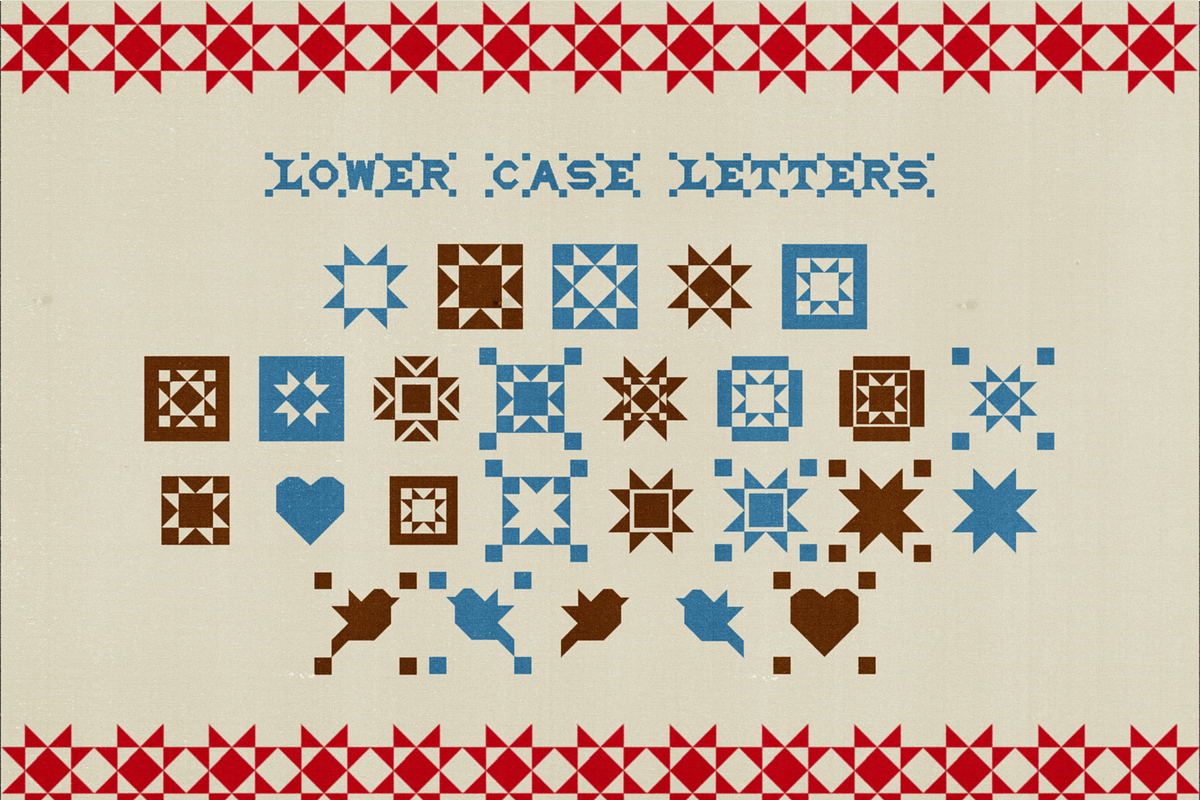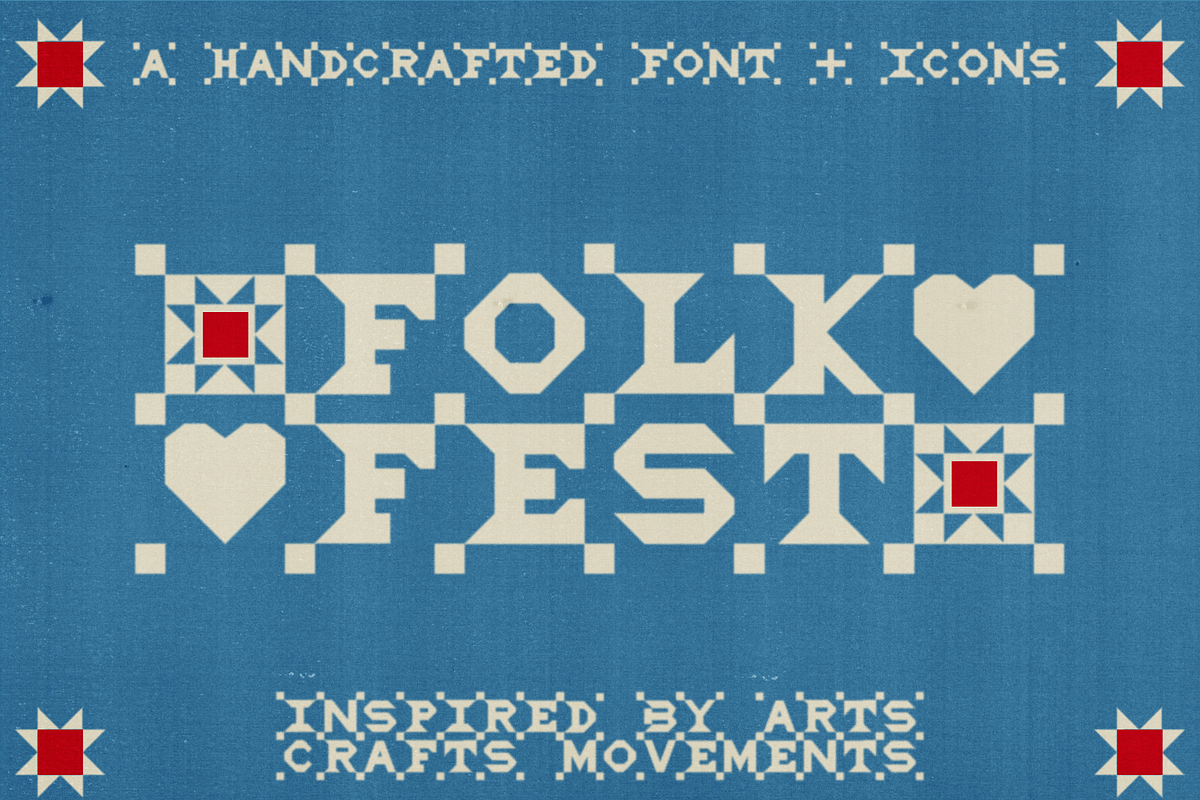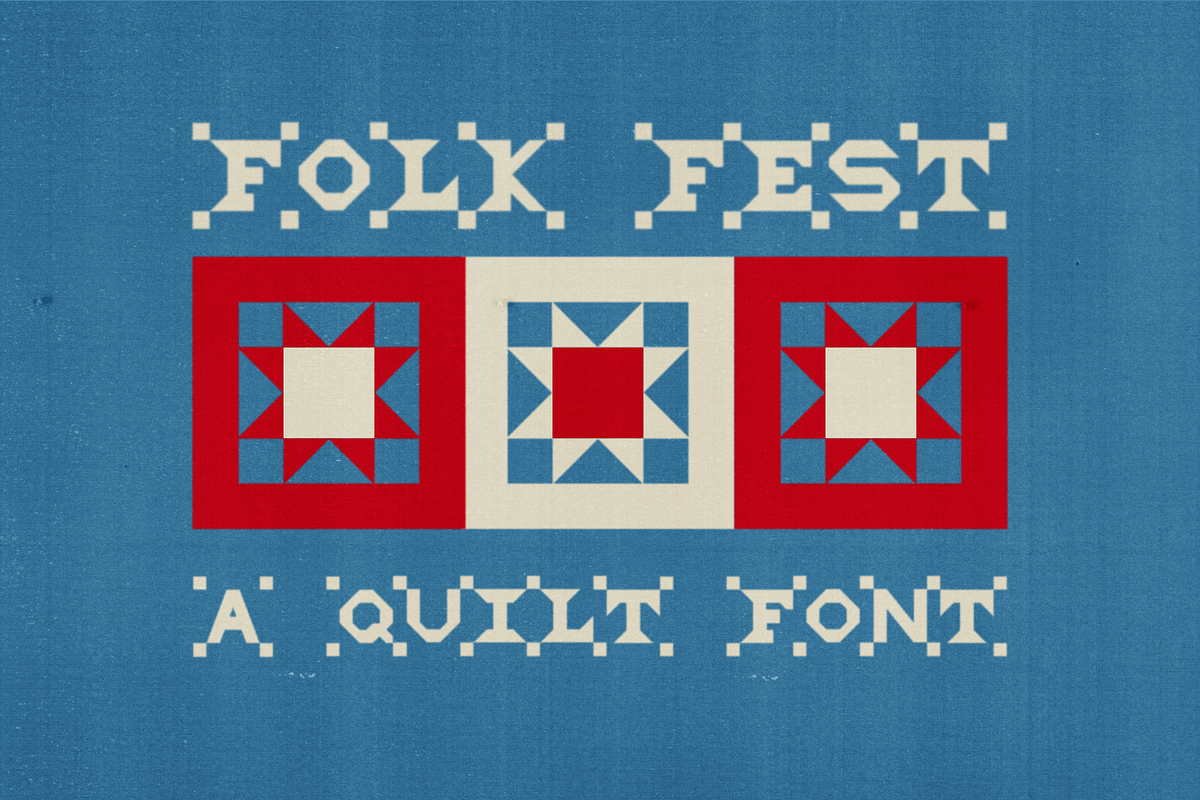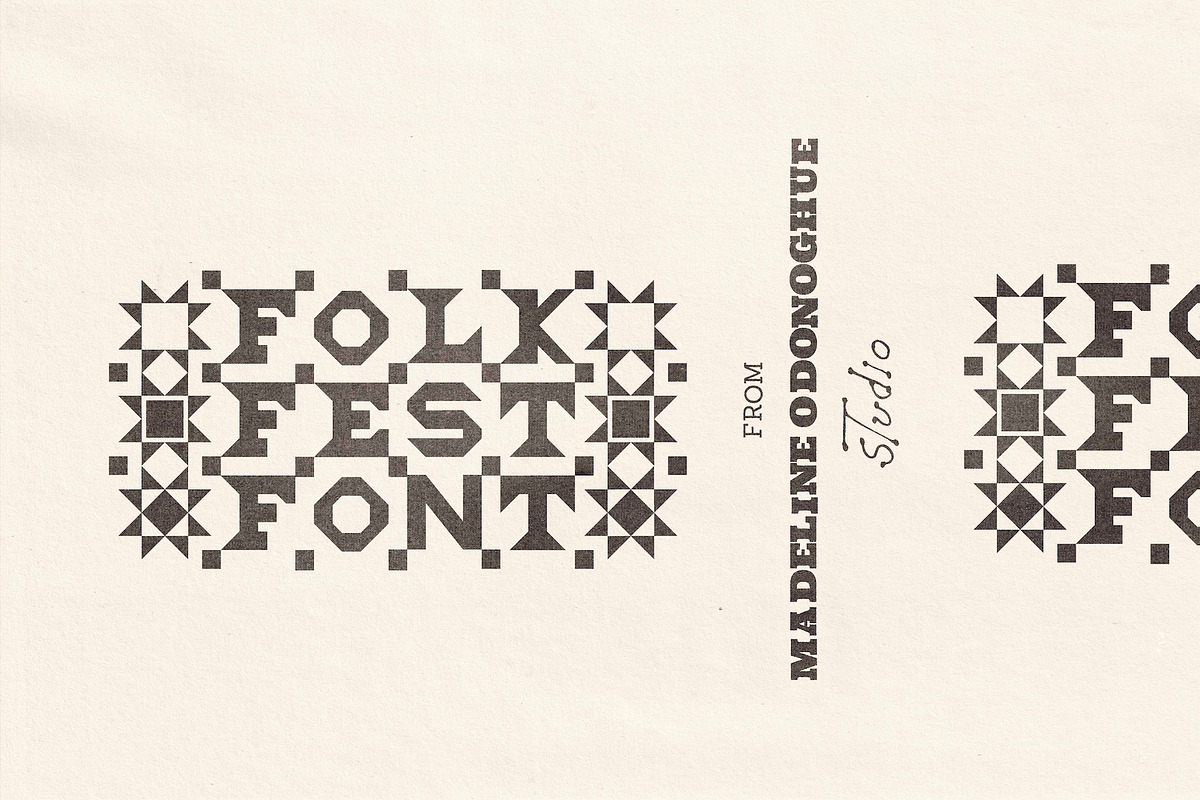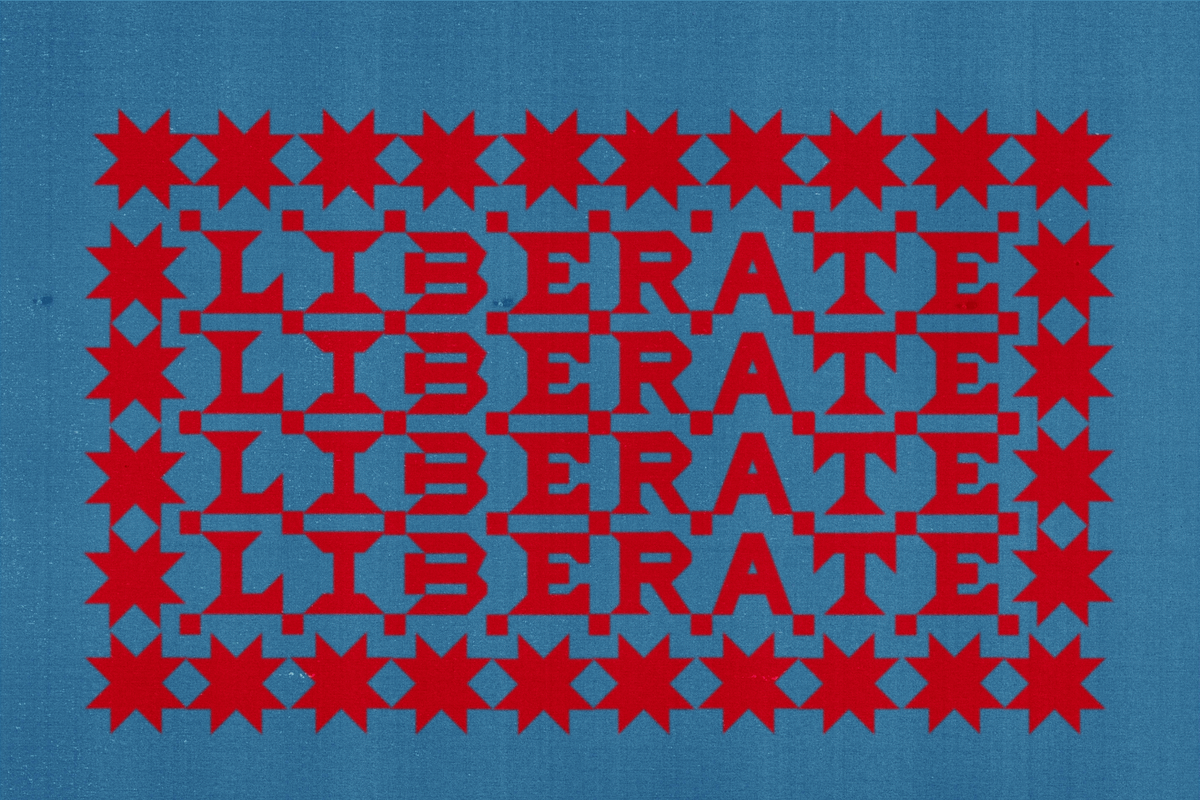
Folk Fest - Hand Crafted Font
FOLK FEST is a hand-crafted display font inspired by the rich visual history of quilt-making and the creative spirit of early Arts & Crafts movements. Rooted in tradition but made for today, it pulls from a legacy of stitched messages, patchwork symbols, and the power of handmade work — from freedom quilts and protest banners to home-sewn comforts and folk festival posters.
Think Topanga Canyon in the 70s: music in the hills, posters taped to tree trunks, blankets spread on dry grass. FOLK FEST captures that era’s free-thinking, back-to-basics energy — a celebration of process, imperfection, and the beauty of things made with care.
This all-caps display font is slightly irregular and full of character. Every letter and number comes in two versions: one with stitched quilt markings, and one clean. The lowercase a–z characters are quilt-inspired icons — peace doves, hearts, stars, and patchwork motifs — designed to be used as decorative borders, graphic elements, or stand-alone symbols.
Whether you're designing for a folk gig, album art, community project, or a brand with soul, FOLK FEST brings a crafted, tactile feel to your work.
Uppercase A–Z: stitched and clean alternates Uppercase 0–9: with stitched and clean alternates Lowercase a–z: quilt motif icons
Basic punctuation is provided with the stitched version.
FOLK FEST is both a tool and a tribute — bringing the beauty of handmade craft into the digital age. Some letters will be slightly off grid in honour of imperfection.